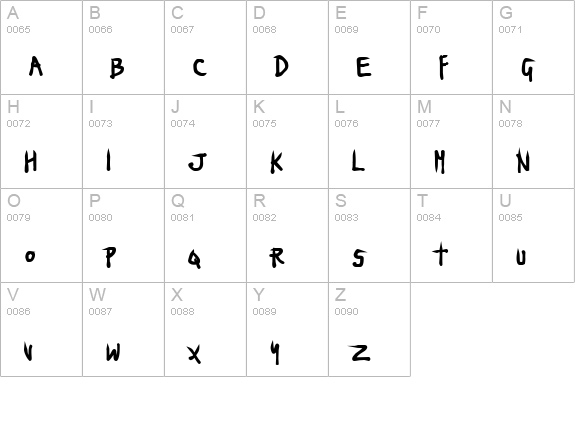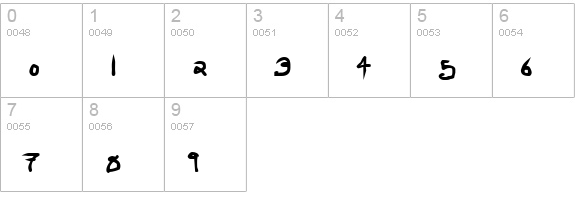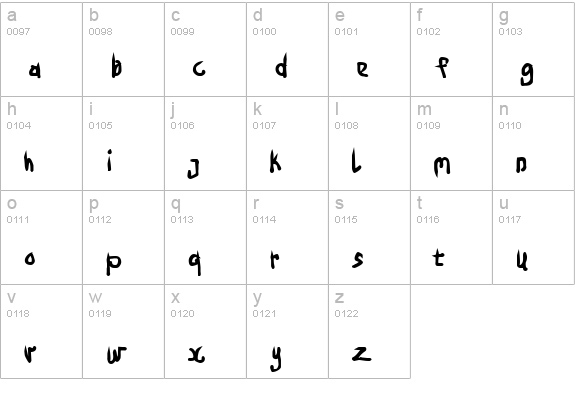
Introducing Ninja Penguin font, a unique and playful typeface that combines the stealth of a ninja with the charm of a penguin. This font features sharp, angular letterforms that evoke the swift movements of a ninja, while also incorporating fun, cartoonish elements inspired by the lovable penguin. Perfect for adding a touch of whimsy to your designs, Ninja Penguin font is sure to make a statement. And the best part? Ninja Penguin font is completely free to download at FontsMarket.com! Simply head over to our website to get your hands on this delightful font and start using it in your projects today. Whether you're creating posters, logos, or social media graphics, Ninja Penguin font is sure to bring a sense of fun and creativity to your designs. Download it now and let your imagination run wild with this charming and dynamic typeface.